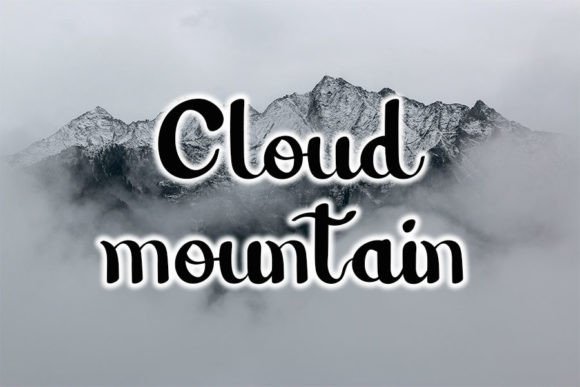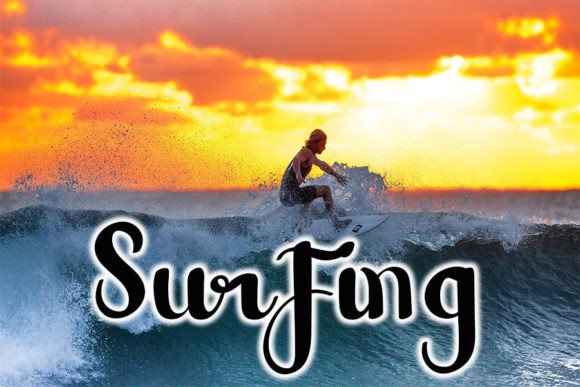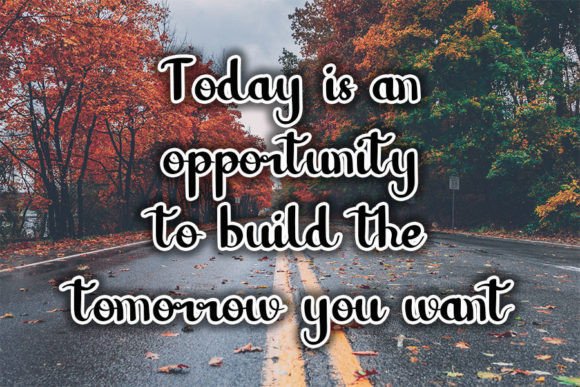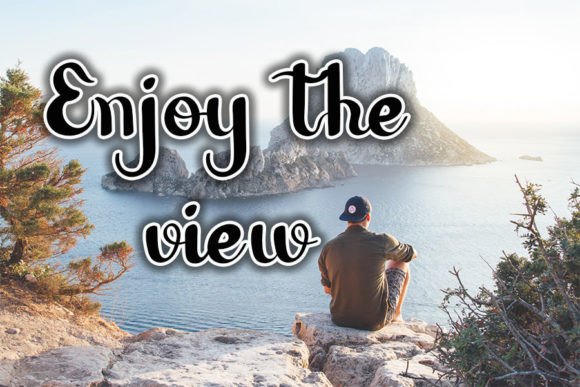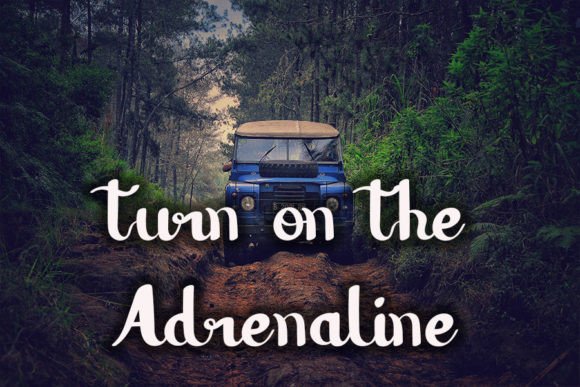
Advanture Font
About Advanture Font
**Advanture Font: Slim and Delicate Elegance for Romantic Designs**
Presenting “Advanture,” a slim and delicate handwritten font that embodies daintiness and joy. This font is an ideal choice for crafting romantic wedding invitations, heartfelt cards, or any design that seeks a personalized touch with a touch of charm.
**Slim and Delicate Aesthetic:**
Advanture boasts a slim and delicate aesthetic, contributing to a refined and sophisticated appearance. The font’s graceful strokes add an elegant touch to your text.
**Perfect for Wedding Invitations:**
Elevate your wedding invitations with the romantic allure of Advanture. The slim and delicate nature of the font enhances the overall design, creating invitations that are both timeless and enchanting.
**Craft Heartfelt Cards:**
Design heartfelt cards that convey emotions with Advanture. Whether it’s birthdays, anniversaries, or special occasions, this font brings a personalized and romantic feel to your card creations.
**Ideal for Romantic Designs:**
Advanture is tailor-made for romantic designs. Its delicate strokes and elegant appearance make it the perfect choice for projects that require a touch of love and romance.
**Personalized and Joyful Touch:**
Bring a personalized and joyful touch to your designs with Advanture. The font’s dainty characteristics add a sense of warmth and intimacy to your text.
**Versatile Application:**
Advanture’s versatility allows it to be applied across a variety of design projects. From wedding materials to personal stationery, this font adapts gracefully to different contexts.
**Create Timeless Invitations:**
Design invitations that stand the test of time with Advanture. The font’s timeless elegance ensures that your invitations remain classic and beautiful for years to come.
**Enhance Special Occasion Designs:**
Whether it’s a formal event or an intimate gathering, Advanture enhances the design of special occasions. Its delicate charm adds a touch of sophistication to your event materials.
**Craft with Romantic Precision:**
Use Advanture to craft designs with romantic precision. The font’s careful detailing and slim strokes contribute to an overall aesthetic that speaks of love and tenderness.
**Joyful and Elegant Typography:**
Infuse your designs with joyful and elegant typography using Advanture. Let this font be the choice that brings a sense of delight to your creative projects.
Advanture is more than just a font; it’s an elegant tool that enhances the romantic and personalized aspects of your designs. Whether you’re working on wedding invitations, cards, or any project that requires a delicate touch, let Advanture be the font that adds a timeless and enchanting quality to your creations.